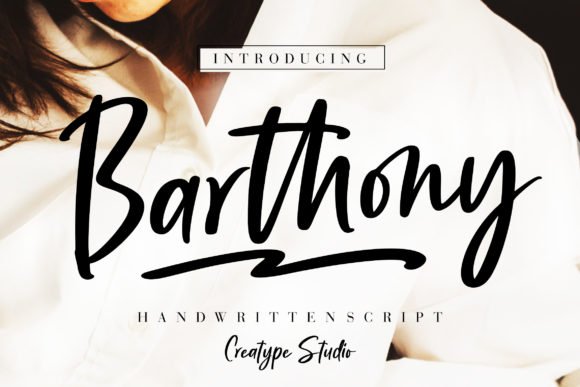
Bring Whimsy to Your Designs with Barthony Font
Have you ever been stuck on a design project, searching for the perfect font to give it that extra oomph? You know the feeling – the blank screen staring back at you, the cursor blinking impatiently, and the pressure to create something truly special. That’s when I fell in love with the Barthony Font. Its beautiful, whimsical, and paint-brushed handwritten style is the perfect remedy for any design blues.
Barthony Font is more than just a pretty face – it’s a powerful tool for designers. With its PUA encoded design, you can easily access all of the glyphs and swashes, taking your designs to the next level. Whether you’re a seasoned pro or just starting out, Barthony Font is sure to bring a touch of magic to your work.
Barthony Font Key Features
- Font Style: Script font with a medieval, calligraphic feel
- Unique Characteristics: Features intricate flourishes, swashes, and ornaments, making it suitable for titles, headings, and decorative text
Barthony Font Review
Overall, I think the Barthony font has some great qualities, but it also has its limitations. Let’s start with the positives.
✨ The font’s unique blend of elegance and playfulness is perfect for creating eye-catching headings and titles. It’s especially effective for projects that require a touch of sophistication and whimsy.
✨ The font’s versatility also makes it suitable for a wide range of applications, from digital media to print materials. It’s available in various weights and styles, making it easy to find the perfect version to match your design needs.
⚠️ One major limitation of the Barthony font is its lack of clarity in smaller font sizes. At certain sizes, the letters can become difficult to read, which may be a problem for projects that require large blocks of text.
⚠️ Additionally, the font’s quirky design may not be suitable for all types of projects. If you’re working on a design that requires a more formal or traditional look, you may want to consider a different font.
In conclusion, the Barthony font is a solid choice for designers looking to add a touch of elegance and whimsy to their projects. While it may have some limitations, its unique design and versatility make it a great option for the right projects.
- Unique blend of elegance and playfulness
- Versatile for various applications
- Available in multiple weights and styles
- Lack of clarity in smaller font sizes
- May not be suitable for all project types
Getting the Most Out of Barthony Font
To get the most out of Barthony font, experiment with different font sizes, colors, and styles to find the perfect combination for your design. Use the font in conjunction with other design elements, such as images and shapes, to create a unique and visually appealing look. Consider using the font in combination with other elegant or vintage fonts to create a distinctive and eye-catching design.
Barthony font is commonly used in designs that require an elegant or vintage touch, such as:
- Vintage-inspired posters and advertisements
- Historical or literary-themed designs
- Formal event invitations and announcements